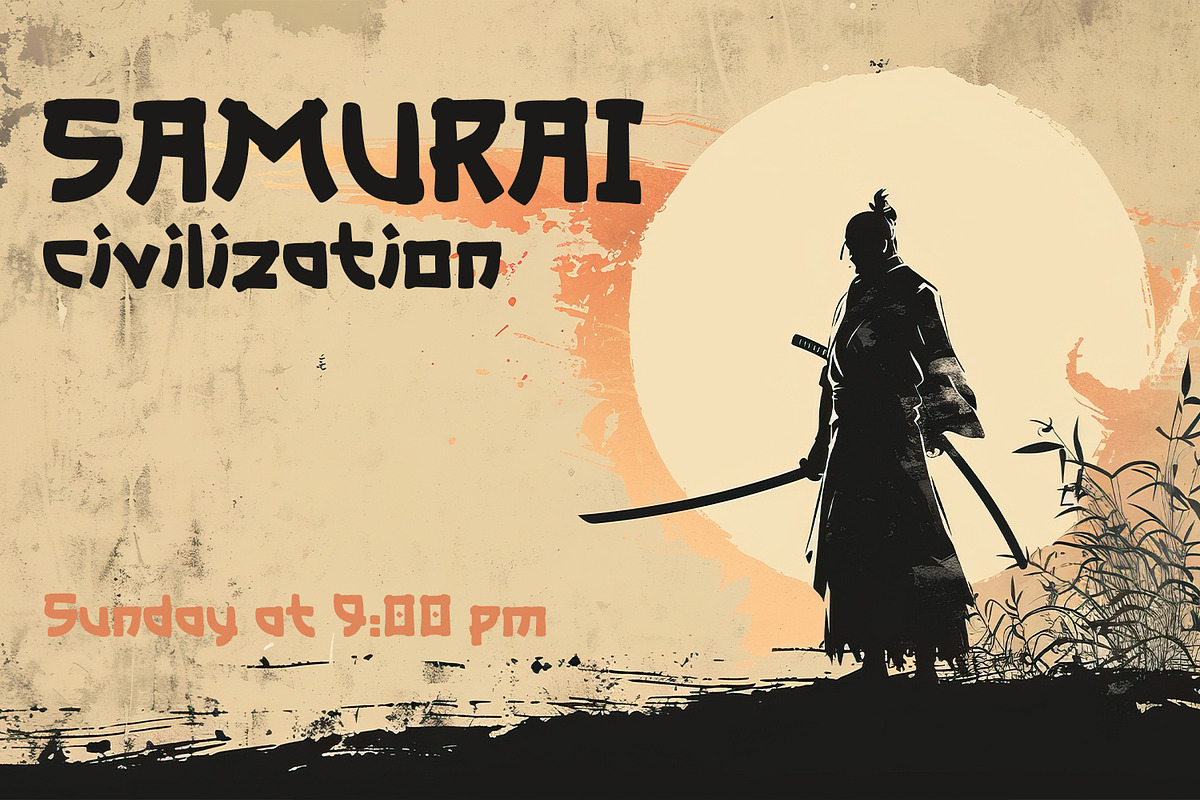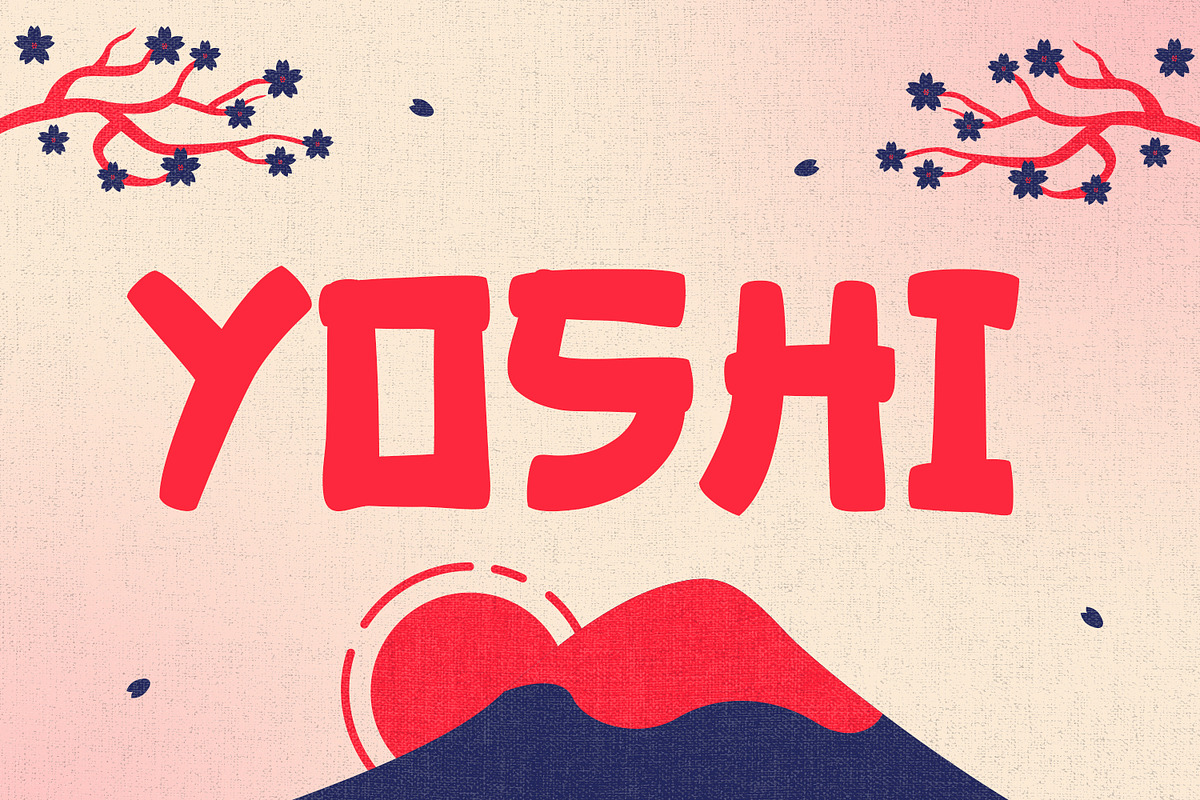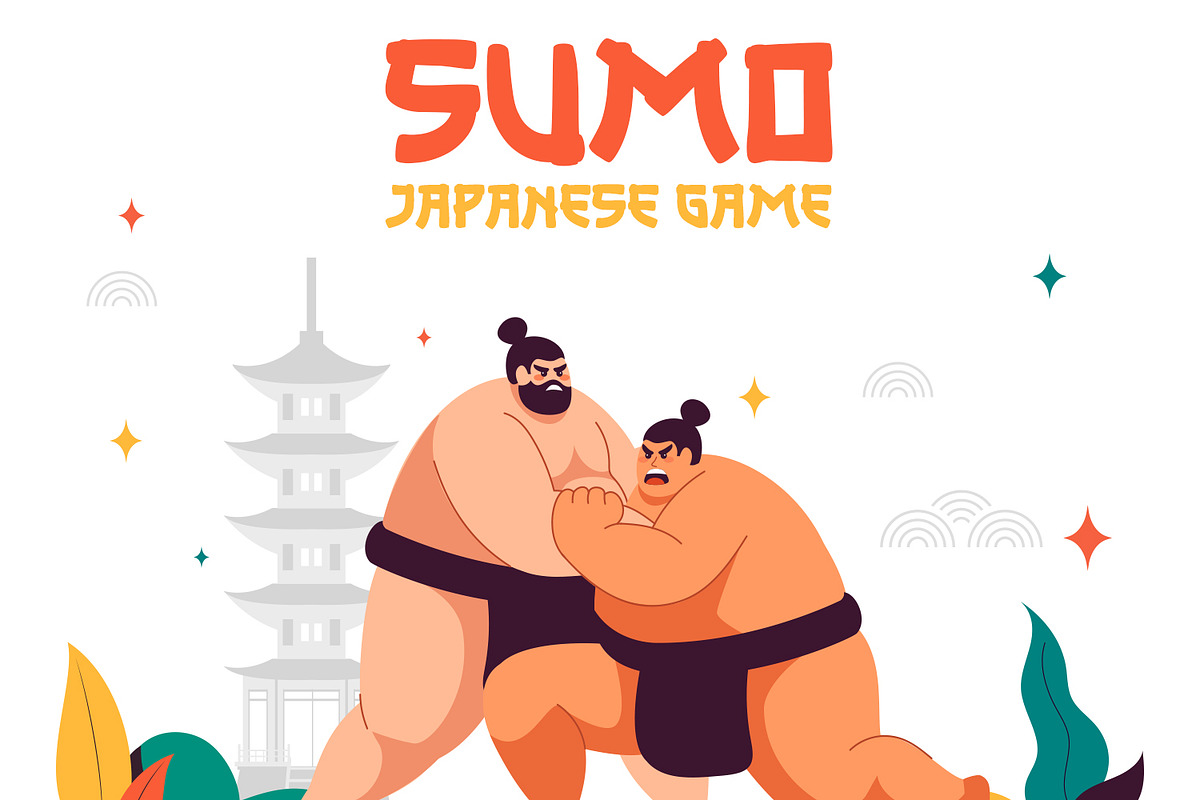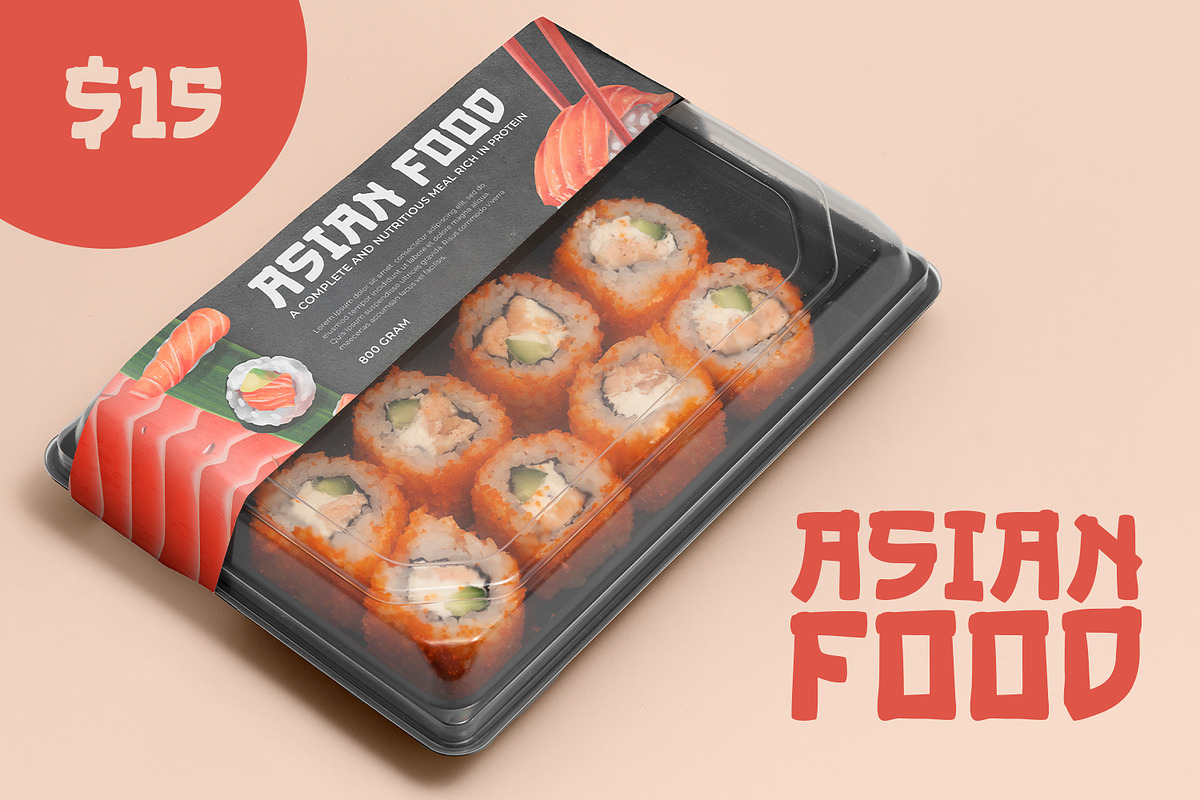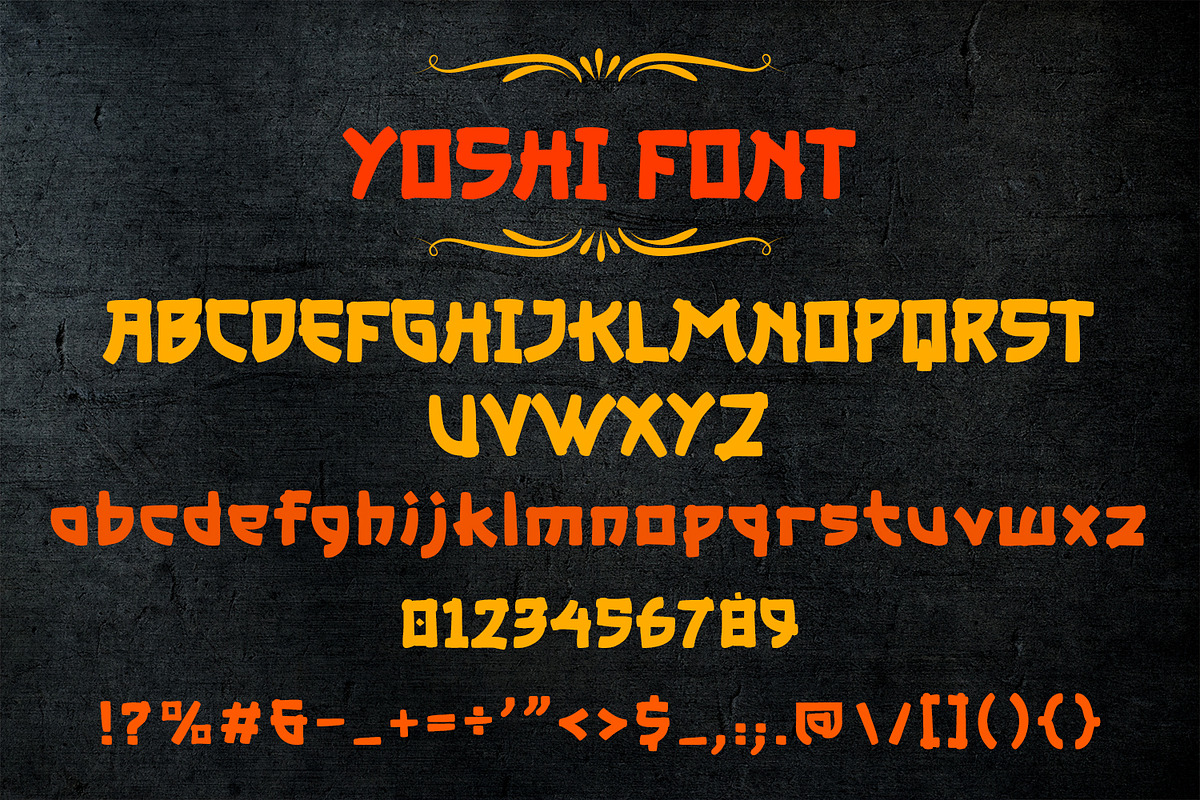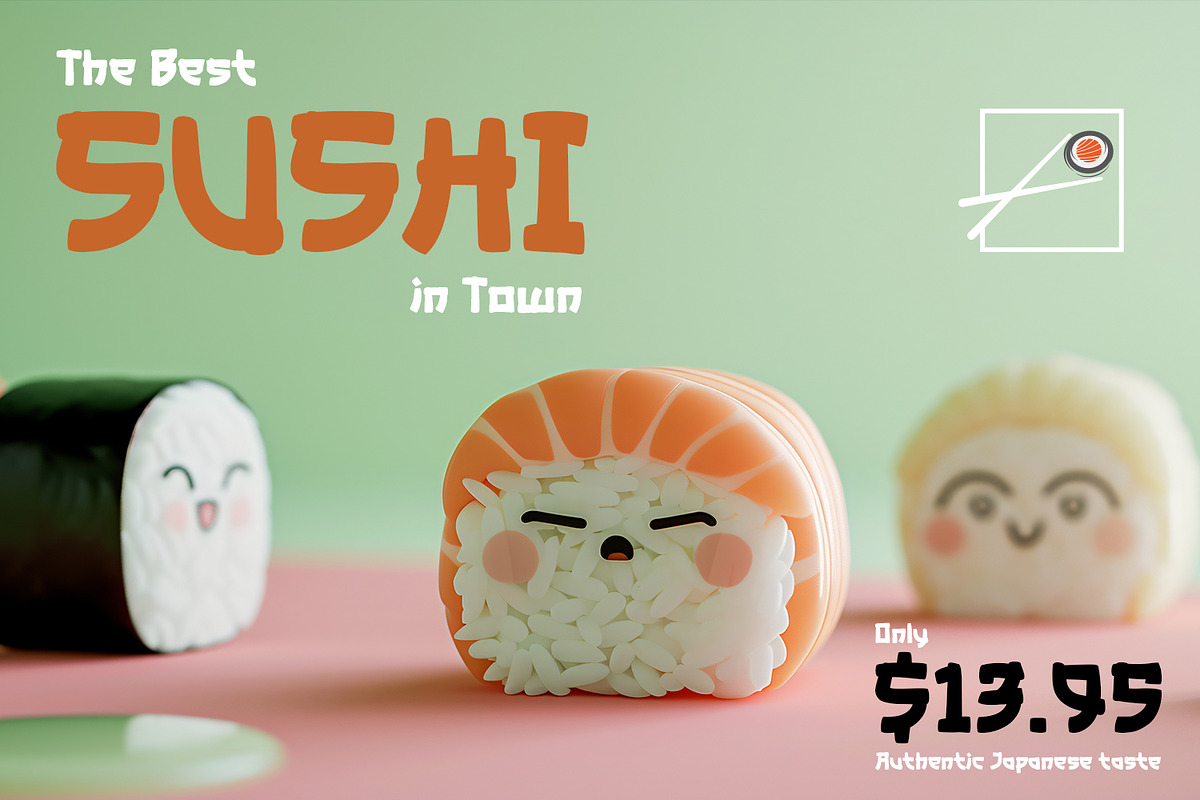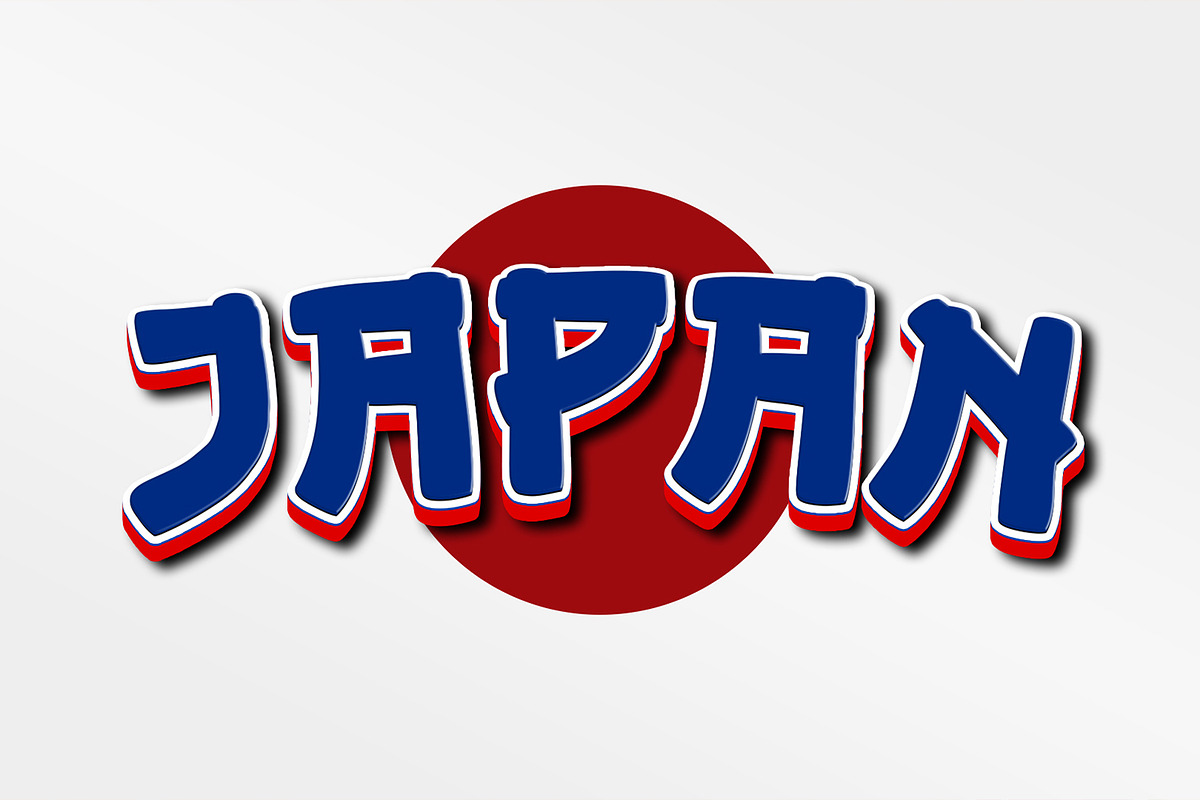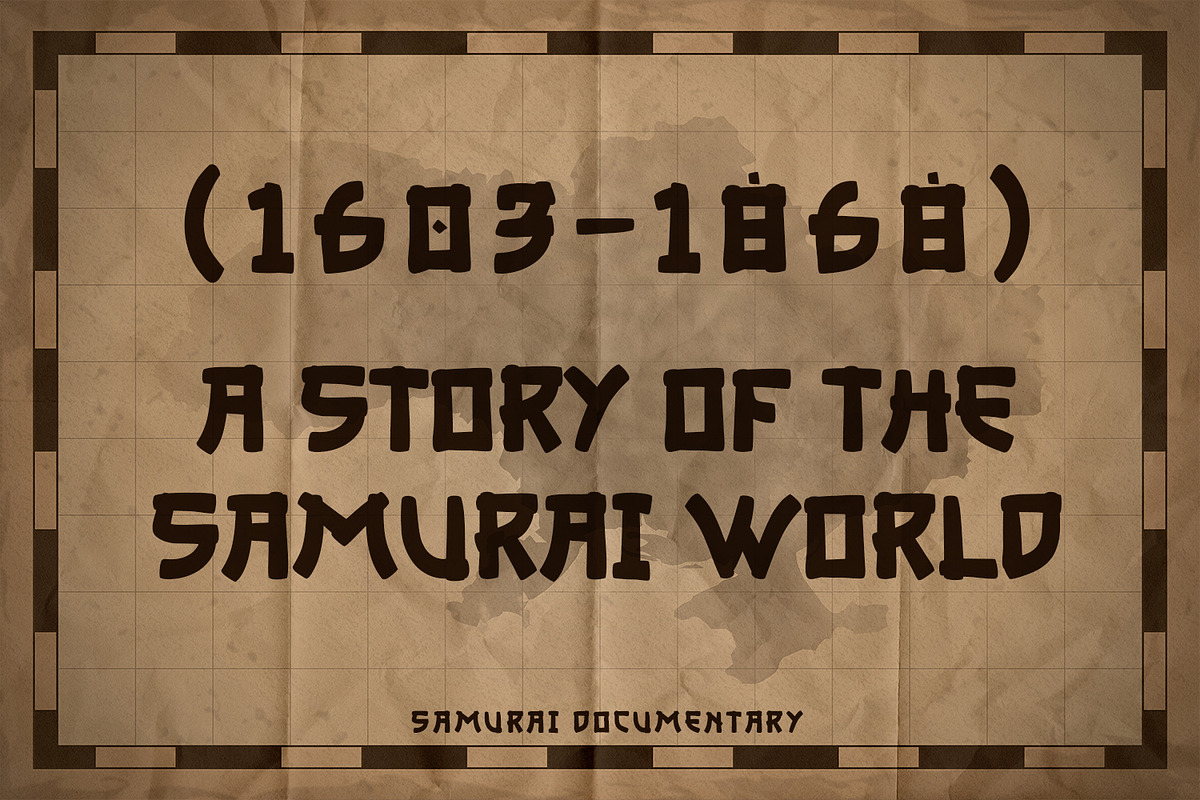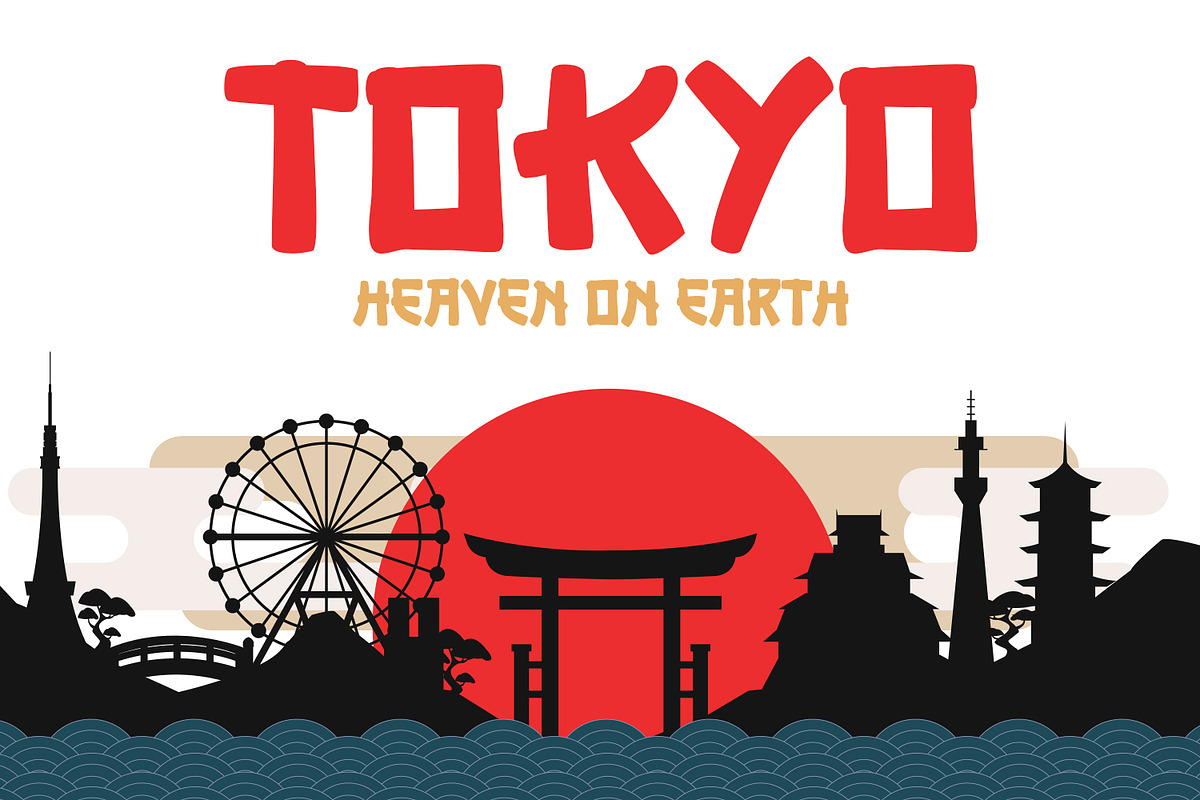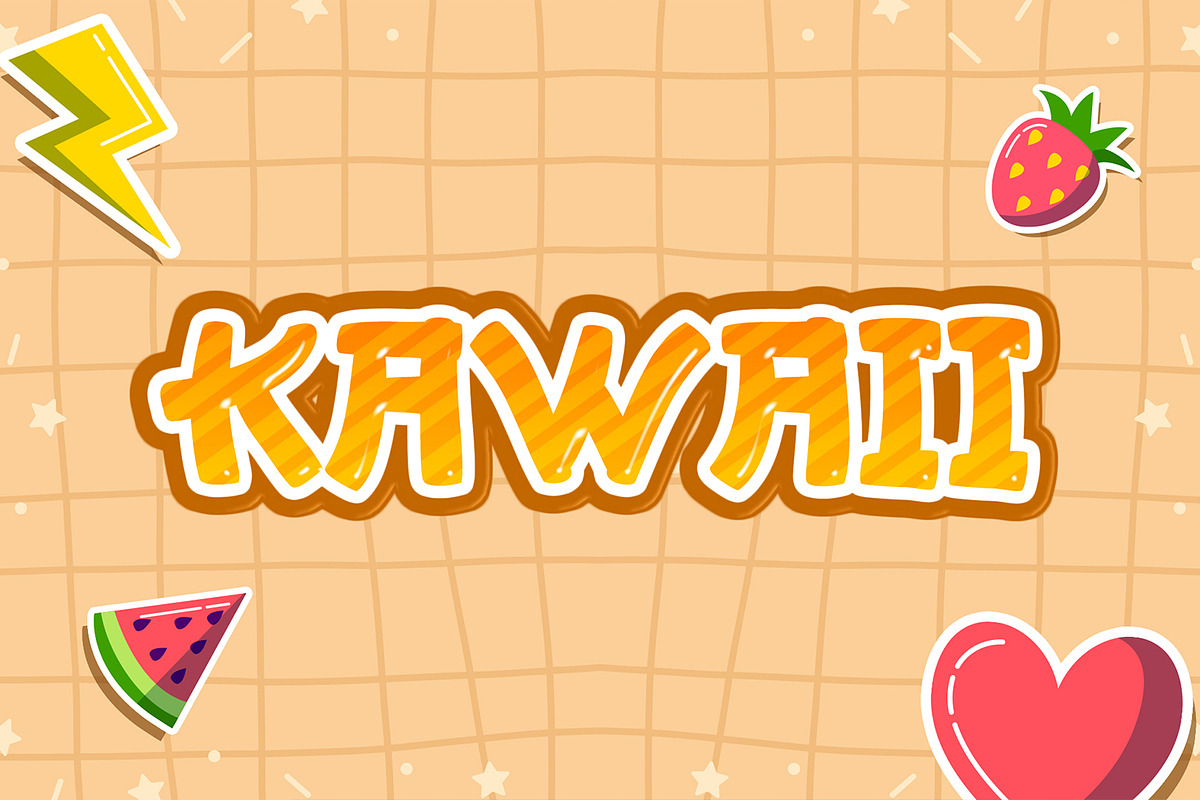
Yoshi - Bold Samurai Style Japanese
Step into the world of ancient Japan with Yoshi, a stunning and powerful display font that embodies the spirit of the Samurai. This premium typeface is meticulously crafted to bring an authentic, hand-brushed oriental feel to your creative projects. With its bold strokes and unique cultural aesthetic, Yoshi is the perfect luxury choice for branding, sushi restaurant menus, martial arts logos, video game titles, and eye-catching social media graphics.
Whether you are aiming for a professional historical look or a modern, elegant Asian vibe, this font offers unparalleled versatility. Yoshi ensures your designs stand out with a sophisticated and rustic charm that captures attention instantly. High-quality, decorative, and full of character, it’s the ultimate tool for any designer looking to add a touch of Japan to their work.